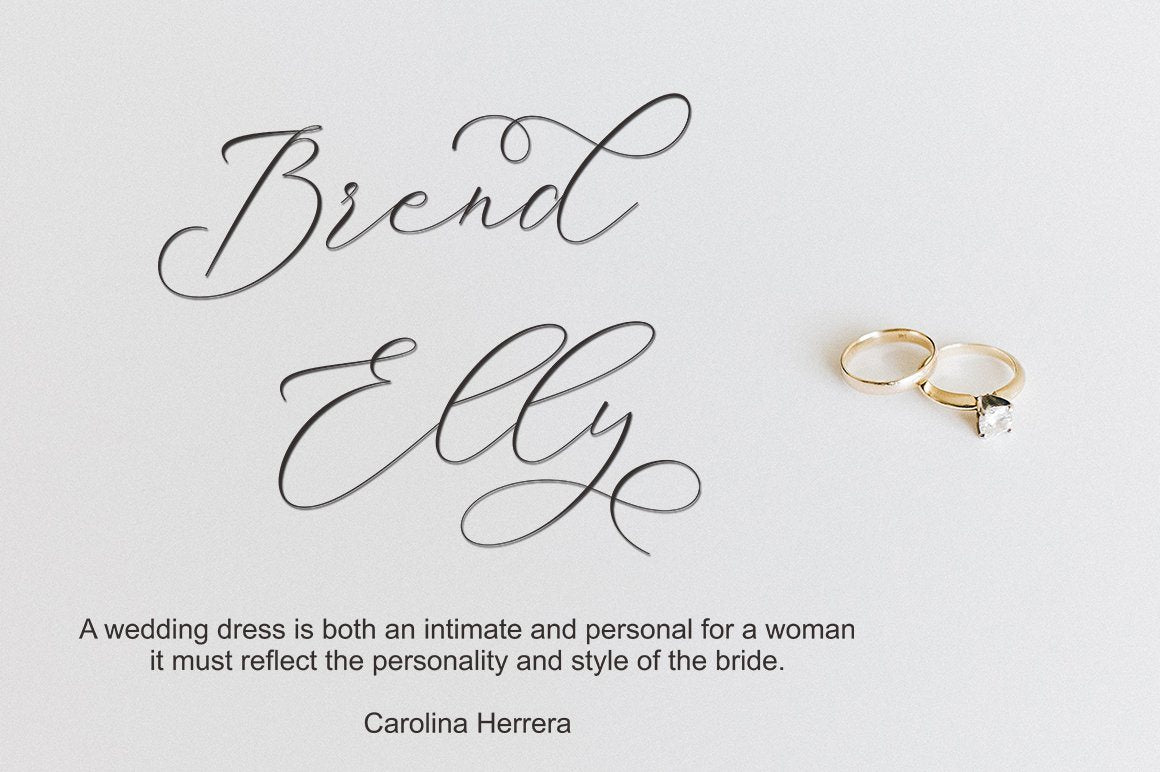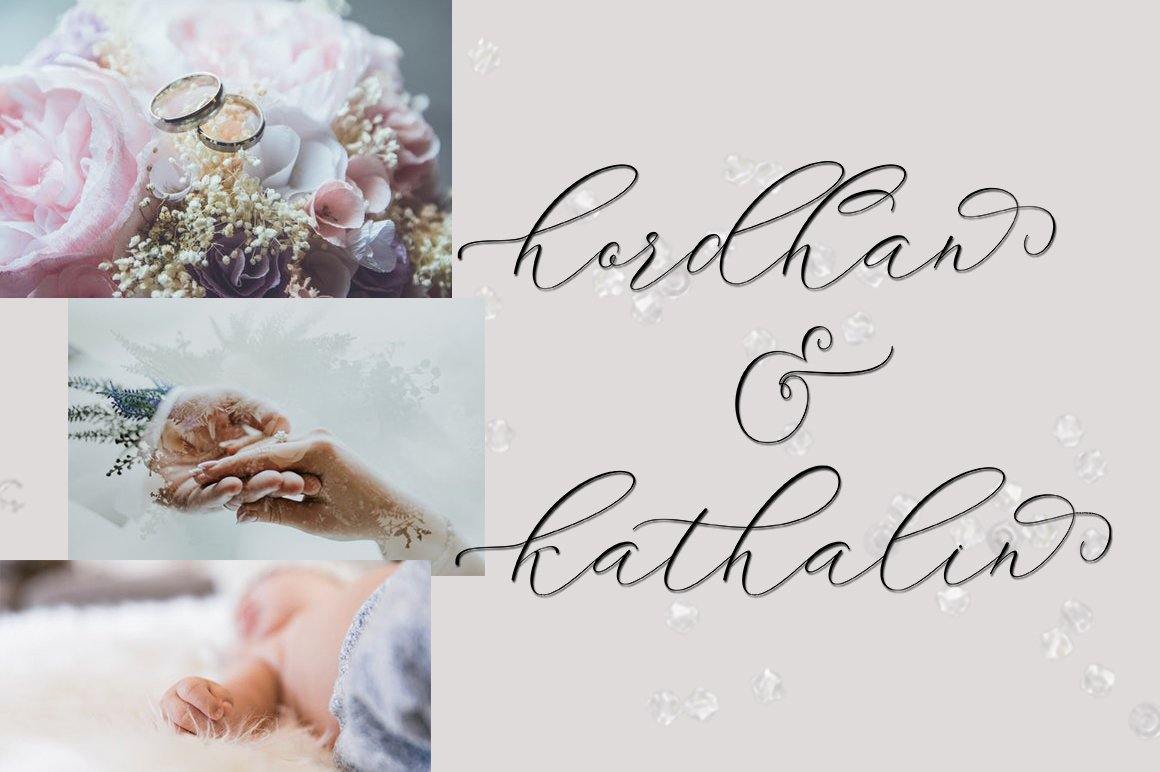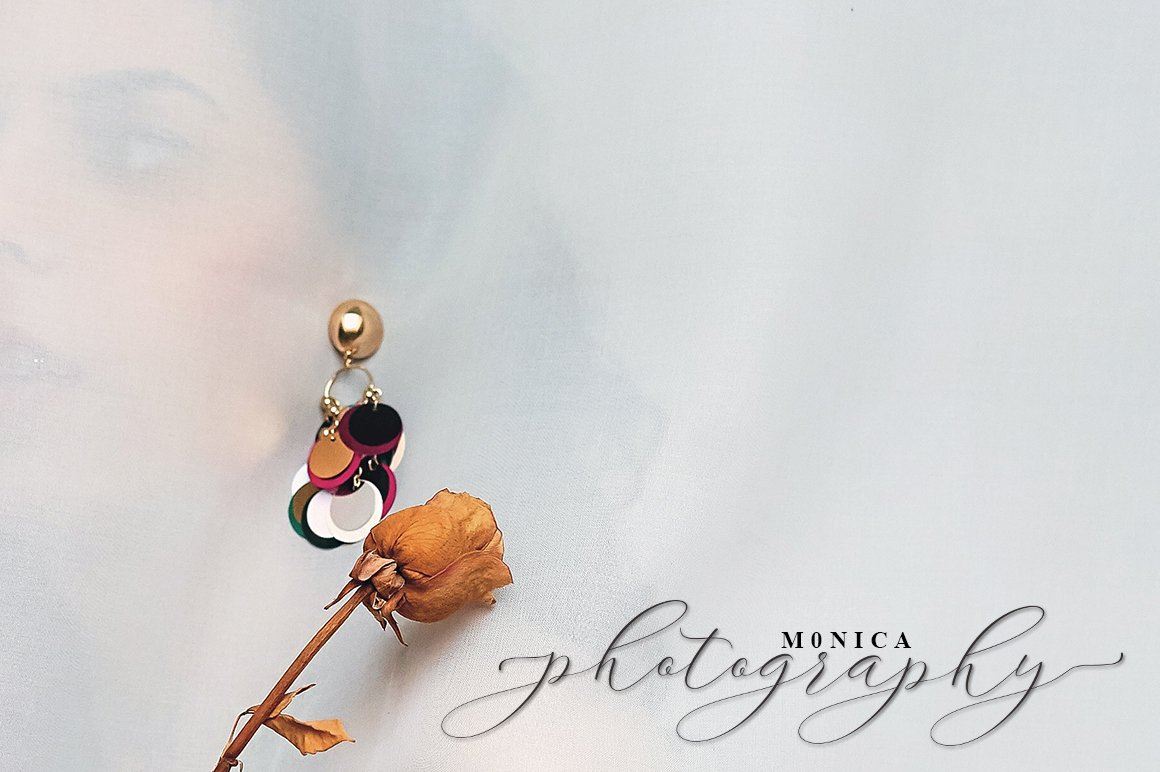
About Ithalia Script
Introducing! ithalia Script – a new fresh & modern script with a handmade calligraphy style, decorative characters and a dancing baseline! So beautiful on invitation like greeting cards, branding materials, business cards, quotes, posters, and more design concept! Alternates The alternative characters were divided into several Open Type features such as Swash, Stylistic Sets, Stylistic Alternates, and Ligature. The Open Type features can be accessed by using Open Type savvy programs such as Adobe Illustrator, Adobe Photoshop , Corel Draw X version, And Microsoft Word. And this Font has given PUA code (specially coded fonts). so that all the alternate characters can easily be accessed in full by a craftsman or designer. Features : Unique ligatures Stylistic Alternates Stylistic sets Basic Latin A-Z and a-z Numbers International Symbols include Punctuations How to access all alternative characters using Adobe Illustrator: • https://www.youtube.com/watch?v=XzwjMkbB-wQ There are additional ways to access alternates/swashes, using Character Map (Windows), Nexus Font (Windows), Font Book (Mac) or a software program such as PopChar (for Windows and Mac). How to access all alternative characters, using Windows Character Map with Photoshop: • https://www.youtube.com/watch?v=Go9vacoYmBw File Includes: ithalia Script (.otf & .ttf) ithalia Script (.otf & .ttf)